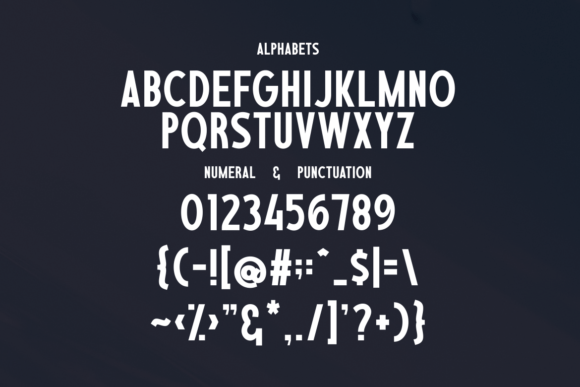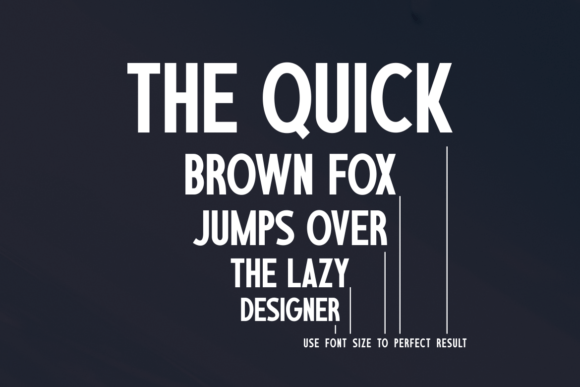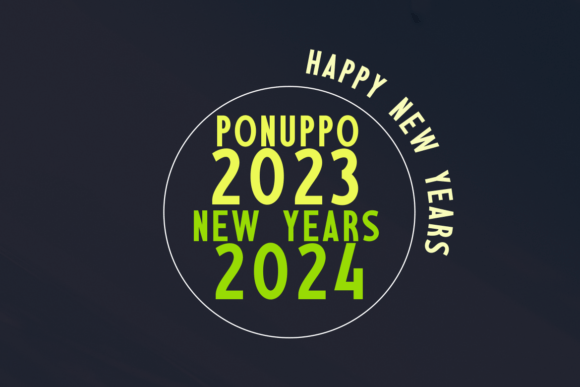
Introduction to Napodera Font
Have you ever stared at a blank canvas, unsure of where to begin your next creative project? The silence can be deafening, until that one spark ignites, and your imagination runs wild. For designers, that spark often comes in the form of a perfectly chosen font.
Meet Napodera Font, a bold and assertive sans serif font that’s about to become your new go-to design resource. With its high-quality design and transparent background, this font is a game-changer for any creative project. Whether you’re working on a logo, brochure, or website, Napodera Font has the potential to elevate your work to the next level.
Key Features of Napodera Font
- High-quality design: Napodera Font offers a unique blend of modern and classic elements, making it perfect for creative projects.
- Transparent background: This feature allows designers to easily place the font over any background, giving them more flexibility in their design.
- Unique characteristics: The font features a distinctive blend of geometric and organic elements, giving it a unique and eye-catching look.
- Perfect for creative projects: Whether you’re working on a logo, branding, or packaging design, Napodera Font is an excellent choice due to its versatility and high-quality design.
Honest Review: Napodera Font
I recently had the chance to work with the Napodera Font, and I must say it’s a great addition to any designer’s arsenal. This high-quality font is perfect for creative projects that require a unique and modern touch.
One of the things I like about the Napodera Font is its transparent background, which makes it easy to use in various design scenarios. The font is also incredibly versatile, making it suitable for a wide range of design projects.
Here are some of the things that work well with the Napodera Font:
- ✨ Unique and modern design
- ✨ High-quality and crisp font
- ✨ Transparent background for easy use
- ✨ Suitable for a wide range of design projects
- ⚠️ Limited font sizes and styles available
- ⚠️ Not suitable for very large or complex projects
Using the Font in Your Project
With the Napodera Font installed, you can now use it in your creative project. Experiment with different font sizes, colors, and styles to achieve the desired look.
The Napodera Font is perfect for:
– Blog posts and articles
– Infographics
– Branding materials
Tips for Getting the Most Out of Napodera Font
– Use it in combination with other design elements to create a cohesive look.
– Experiment with different font sizes and styles to add visual interest.
– Use the transparent background to create a sense of depth and dimension.